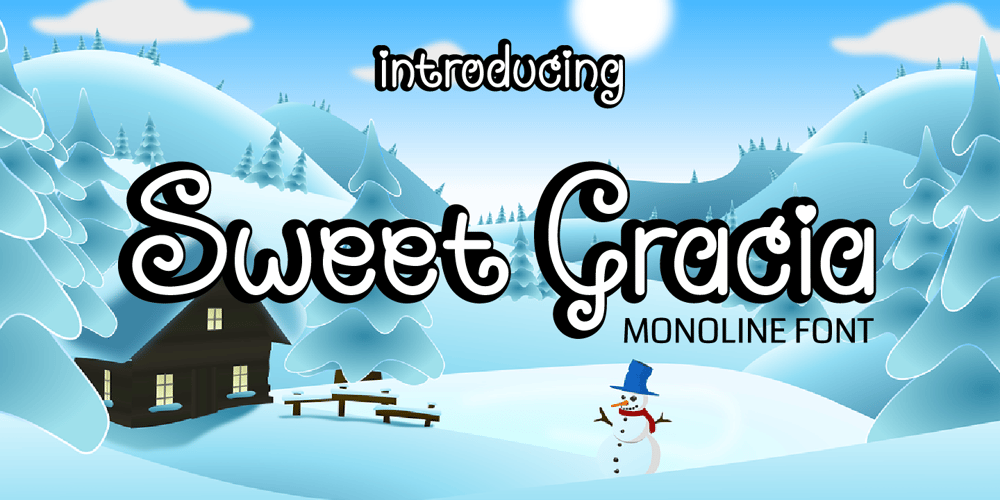
Sweet Gracia Font Family was designed by Gais Zaelani and published by JprintStudio. Sweet Gracia contains 4 styles and family package options. Sweet Gracia is a beautiful monoline font with movement and grace. Although simple, Sweet Gracia is stunning as a display, and can give your headlines a clean and modern look and feel.Whether you’re looking for fonts to make beautiful wedding invitations, beautiful artwork, interesting social media posts, and funny greeting cards, this font will turn any creative idea into a true work of art!